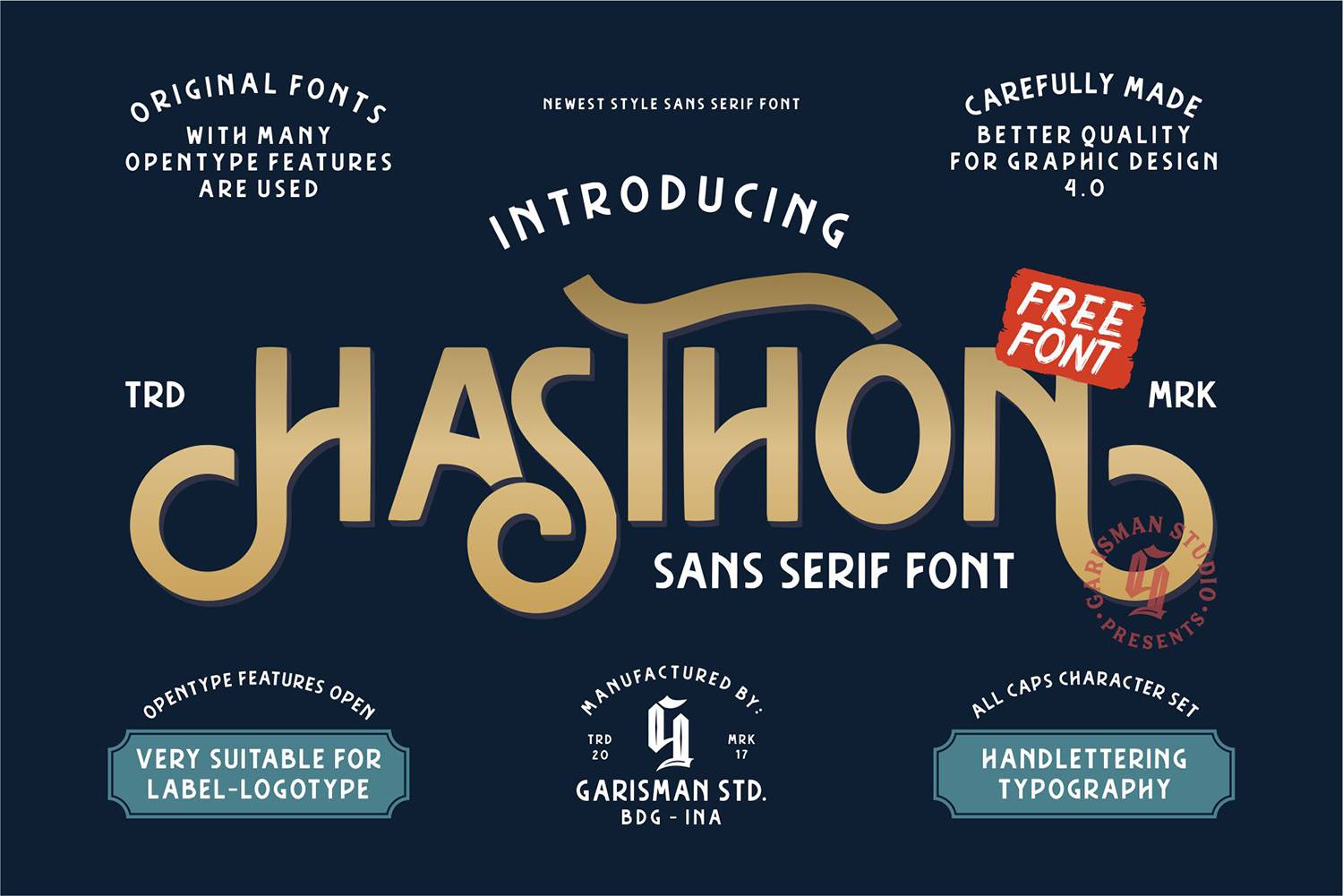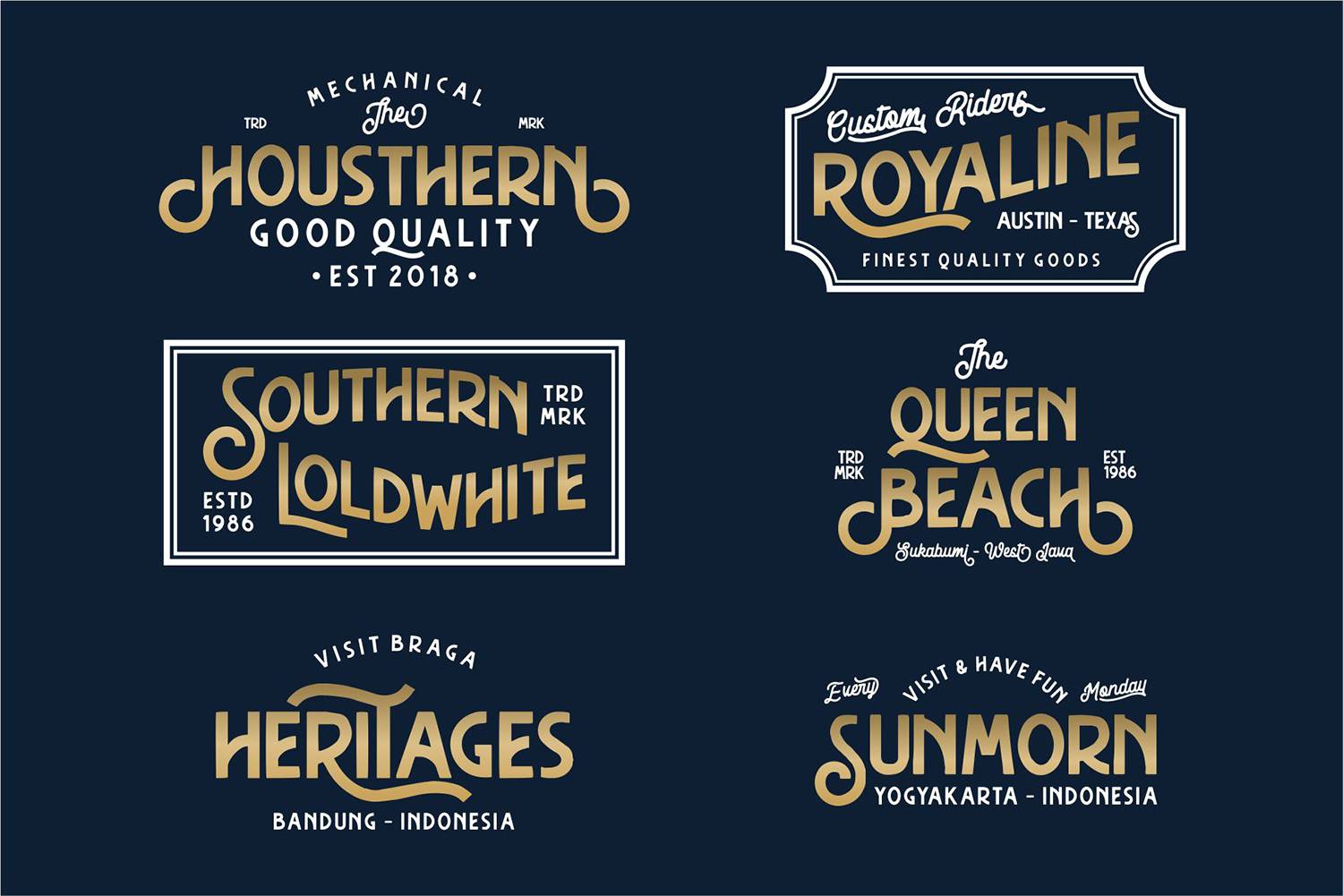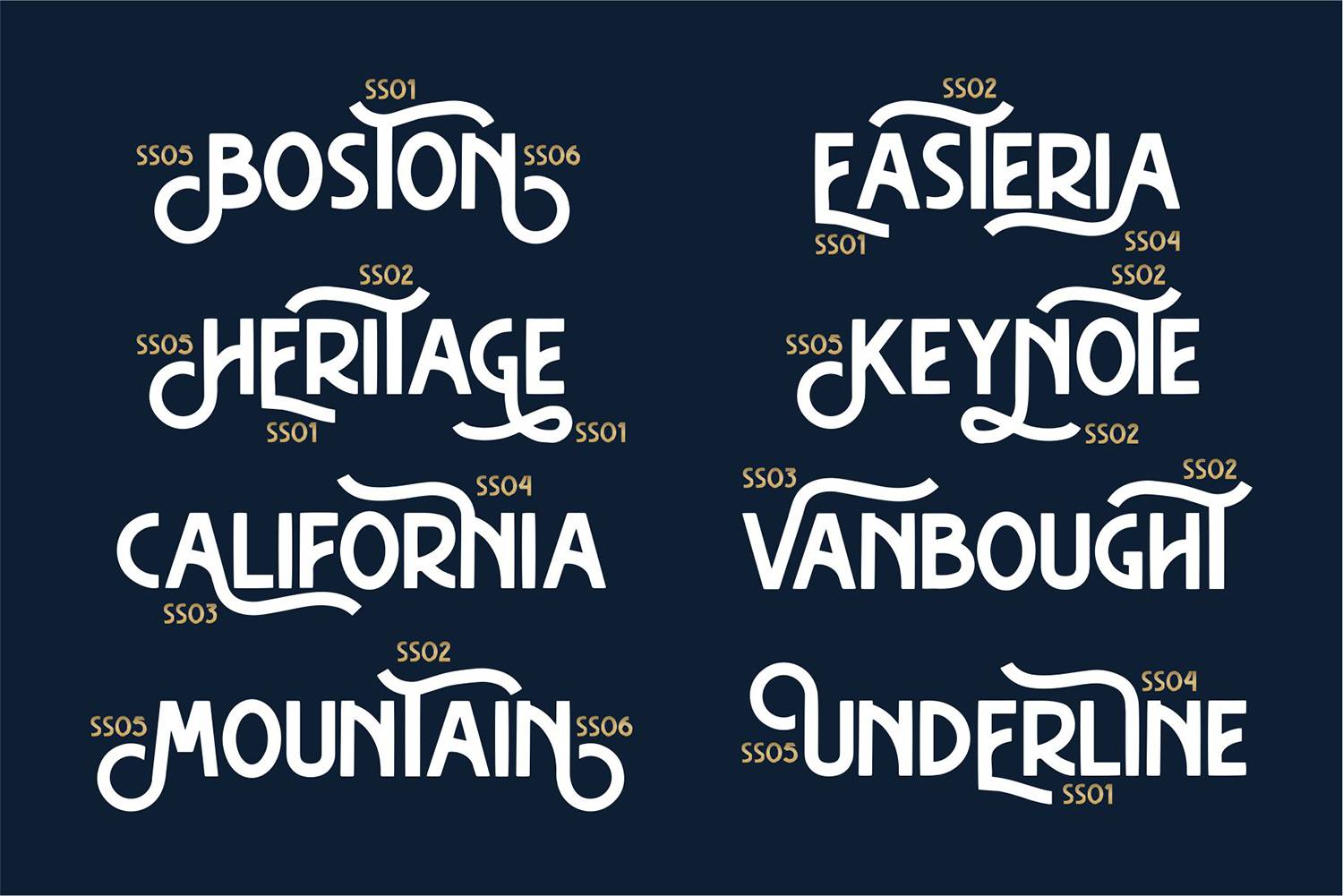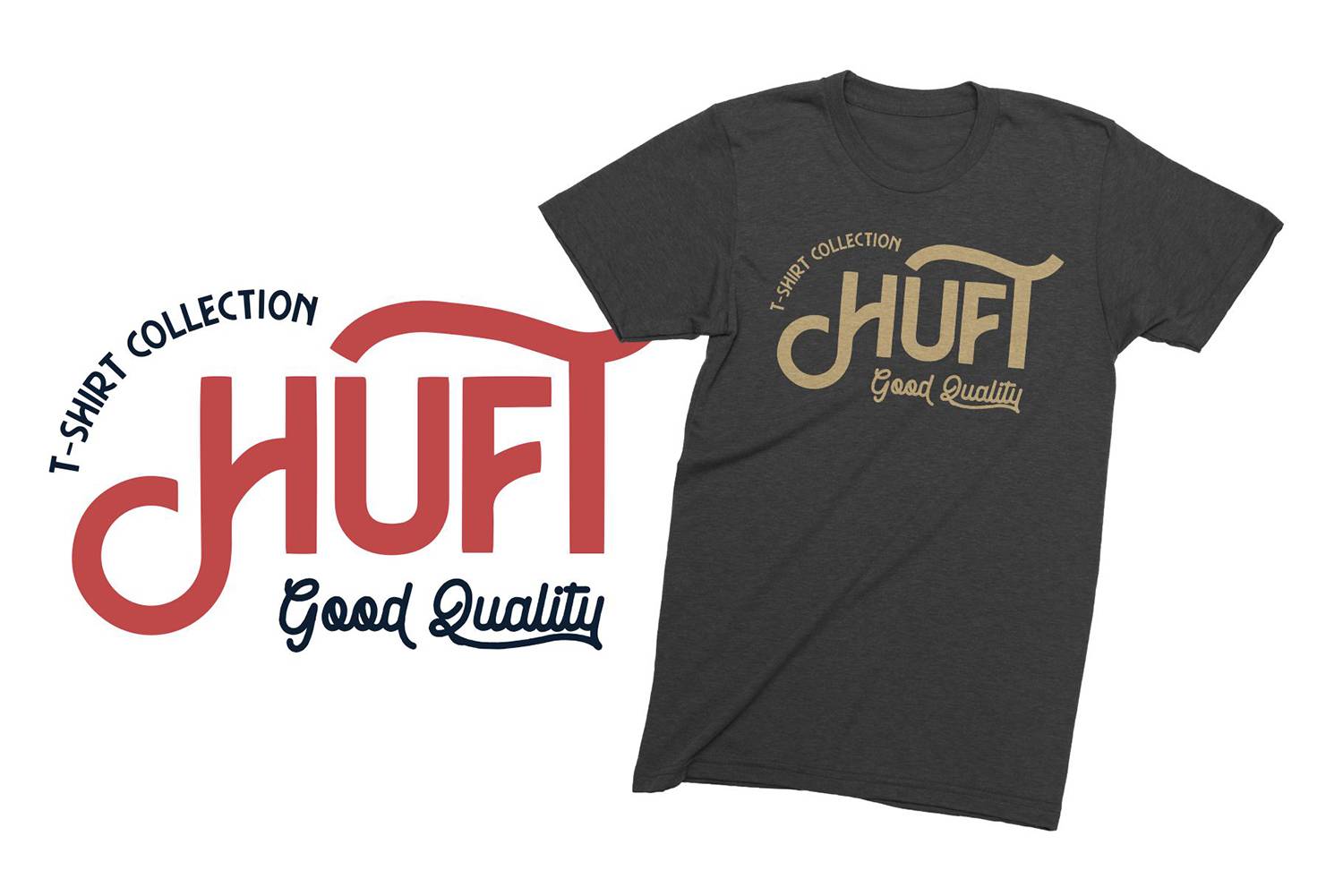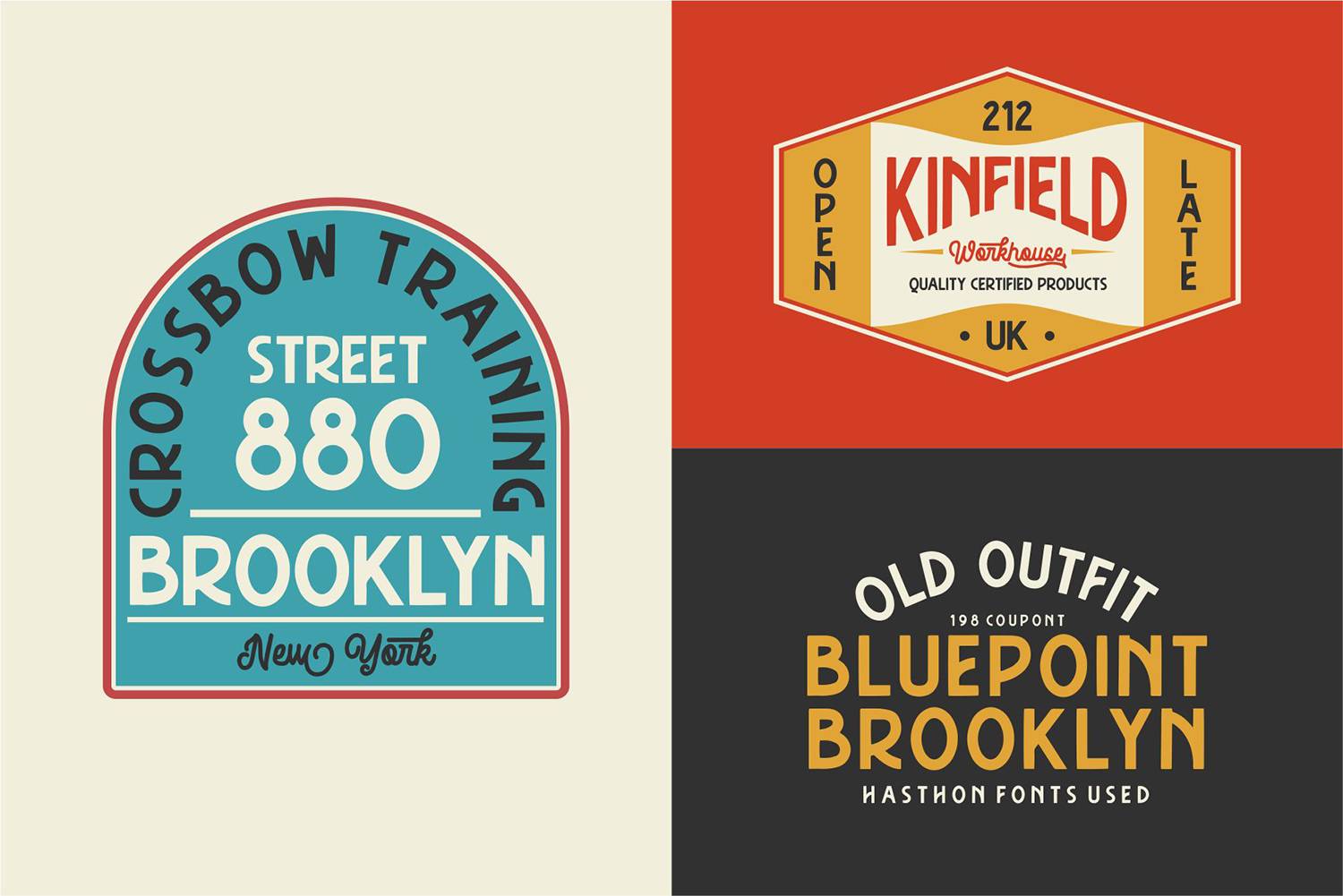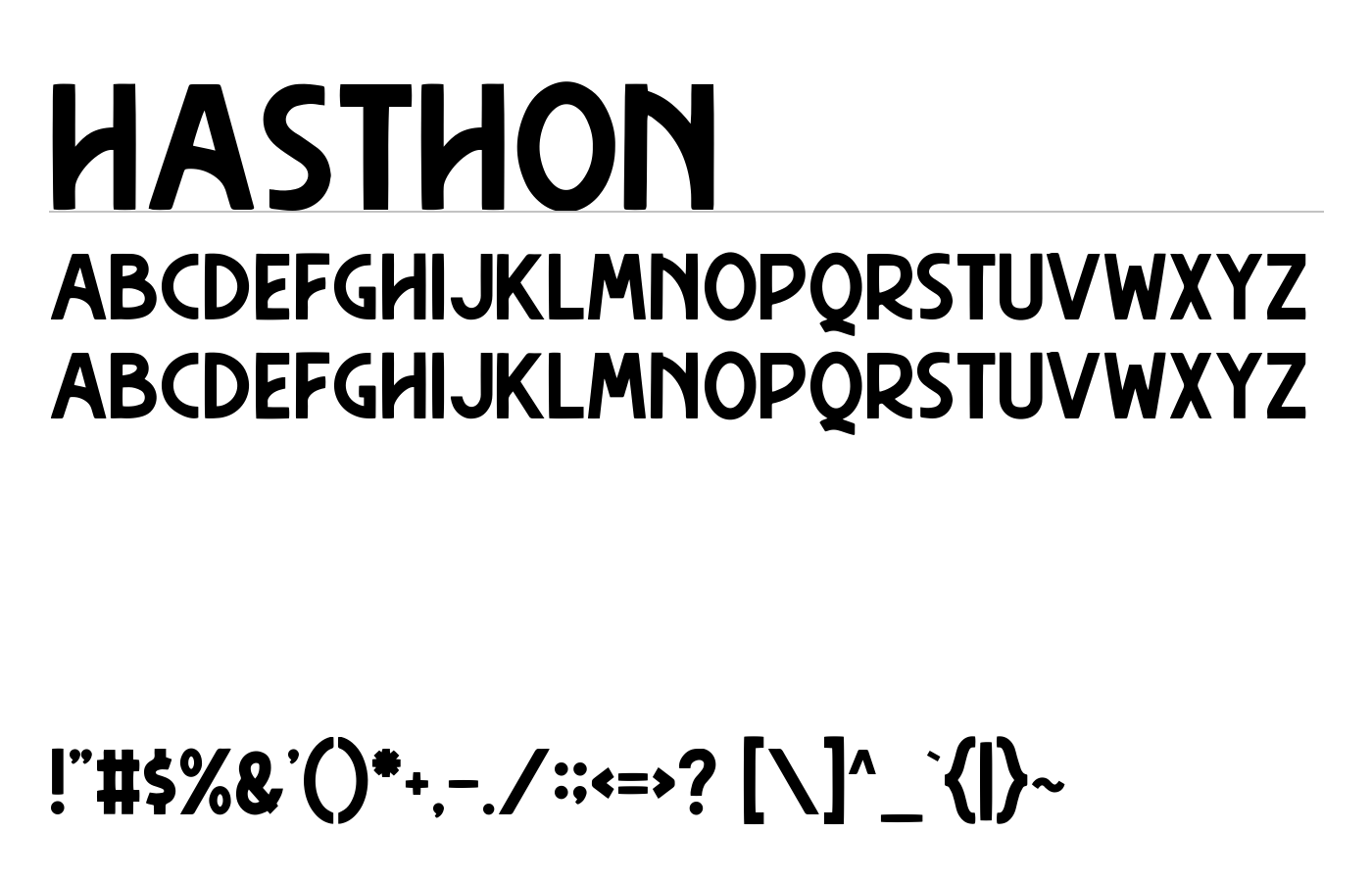
Hasthon is a bold, playful sans serif font with a slightly irregular, hand-crafted feel that adds charm and uniqueness to its letterforms. Its strong, wide characters with varied stroke widths and quirky details make it ideal for creative, informal projects such as posters, logos, and branding that want to convey a friendly and approachable personality. This font works best in display or headline roles where its distinctive style can stand out and capture attention.
Hasthon Font
About Hasthon Font
| Font family | Hasthon Font |